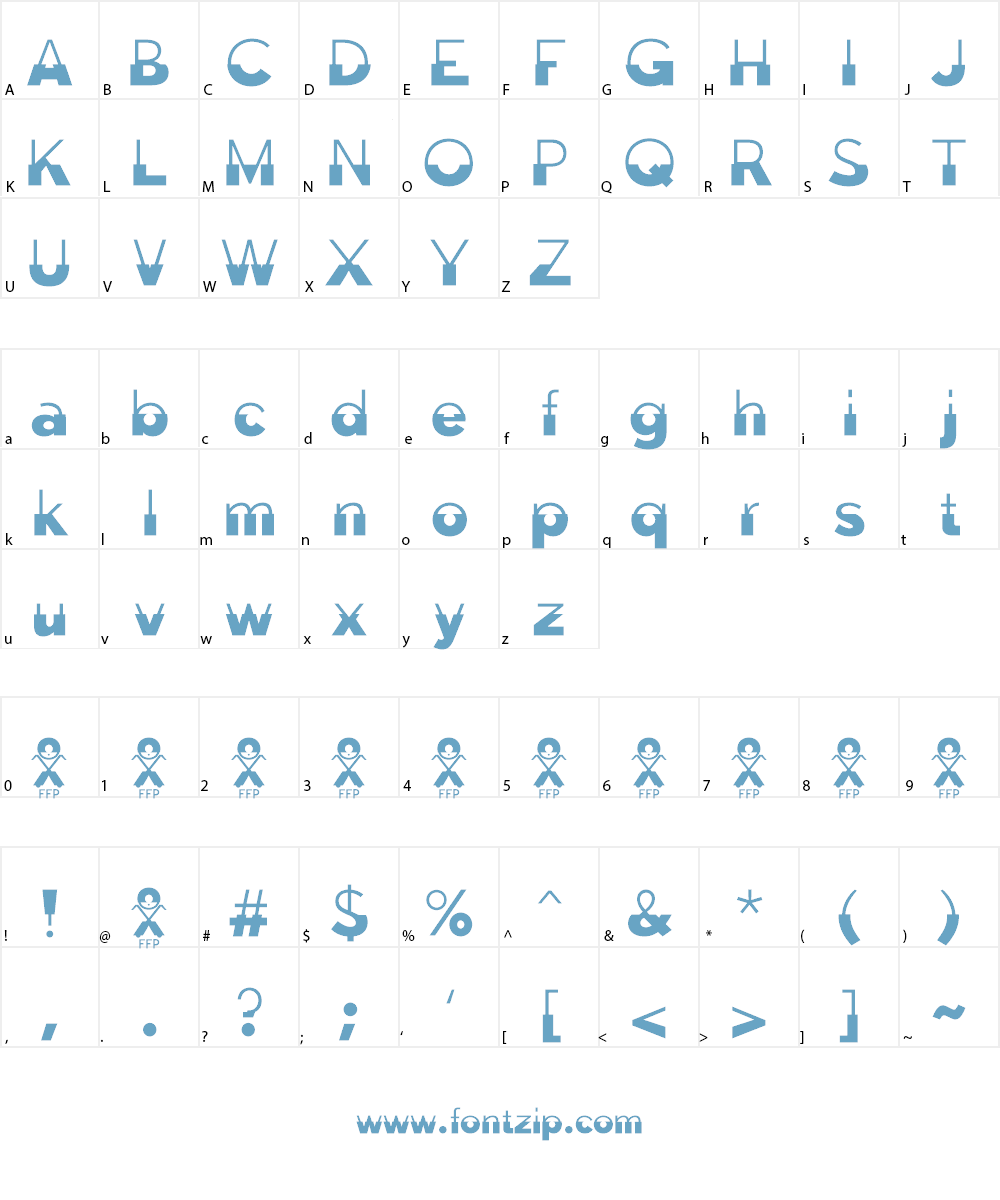
Disoluta is a typographical experiment, fusion of two sans fonts with different weights, for which I used my previous Typefaces: Tabarra Black & Light.